40 Free Cartoon and Comic Fonts
Have you ever feel that traditional fonts are a little too boring and plain for your designs and artworks? Ever wanted to use fonts that are funkier, stylish and fun to look at?
Cartoon and comic fonts are very popular and most people are only familiar with Comic Sans MS and that’s about it. We have now discovered 40 unique and refreshing cartoon and comic fonts for you to give your artwork and design that extra ummmppphhh. Here are a few for sneak preview and the full list is right after the jump.
#1 – Que FONTita
#2 – Burrito
#3 – Oogie Boogie
#4 – Pokemon
#5 – Clink Clank
#6 – Denne’s Aliens
#7 – Fighting Spirit
#8 – Armor Piercing
#9 – Eyesis
#10 – akaHoggle
#11 – Altamonte
#12 – BabOonjaZzbaSsoOn
#13 – Cactus Sandwich
#14 – Cosmic Dude
#15 – Candy Time
#16– Chubby Cheeks
#17 – Gwibble
#18 – LoOse Gangster
#19 – Chlorinar
#20 – Army Beans
#21 – Ice Age
#22 – Broken Toys
#23 – Fontdinerdotcom Sparkly
#24 – Space Pontiff
#25 – Umberto
#26 – Chizzler
#27 – Mickey
#28 – Smartie
#29 – Taxidermist
#30 – MTF Scribblie
#31 – Letras Locas
#32 – Brown Bear Funk
#33 – Baby Kruffy
#34 – Bumbazoid
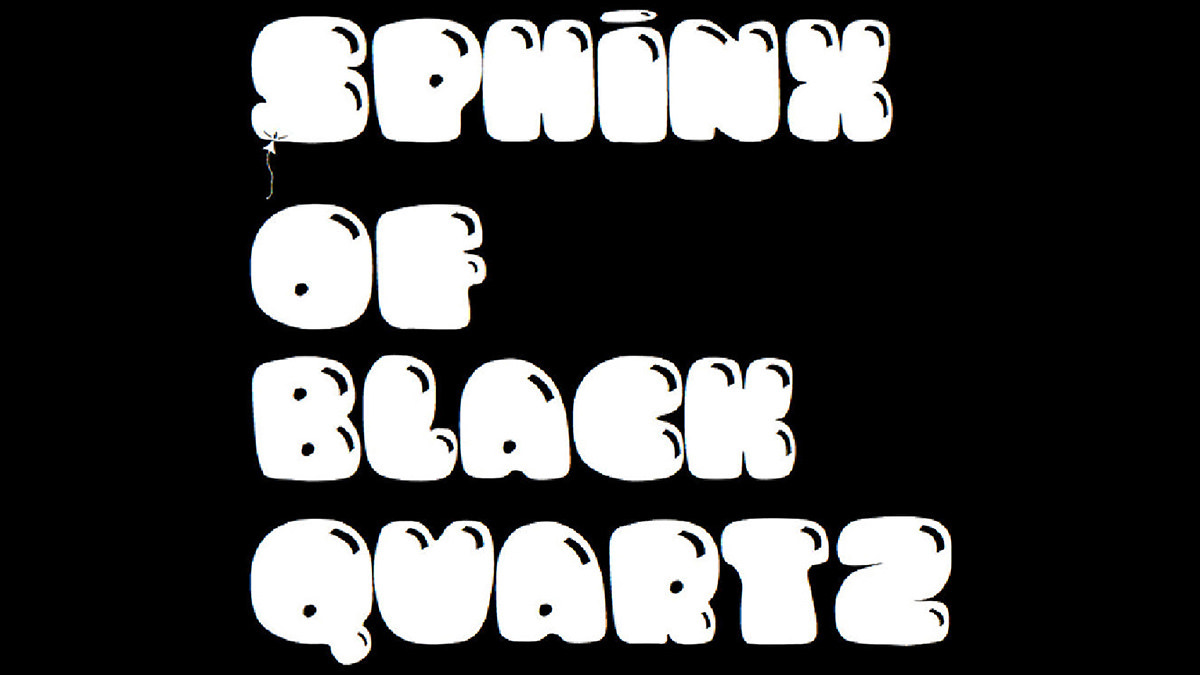
#35 – Chachie
#36 – Glimstick
#37 – Joint By Pizzadude
#38 – Mandingo
#39 – Seven Swordsmen
#40 – Smilage